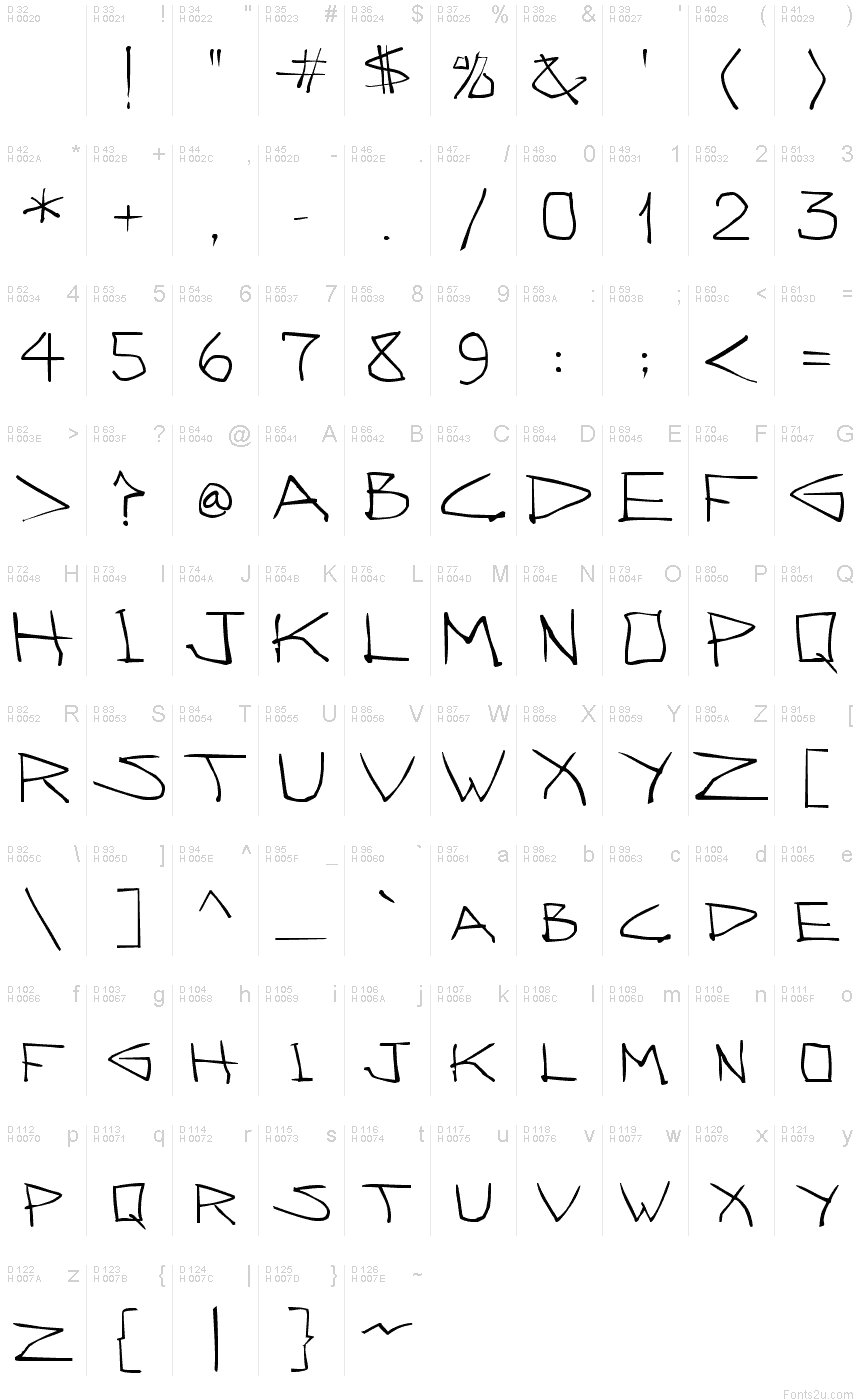
AlphaMouse
AlphaMouse font by Roland Frantz, Synergistic Designs is a free handwritten typeface with a scratchy, wiry energy that feels like it was scribbled with a thin marker on the edge of a notebook. Tall, narrow letters with sharp angles and playful irregularity give it a slightly chaotic, cartoonish vibe—half cheeky, half mischievous. The loose spacing and uneven stroke weight keep things light and informal, so it reads like a fast, excited note rather than a polished script.
Using AlphaMouse font, you can bring jittery personality to kids’ posters, comic panels, zines, YouTube thumbnails, game titles, and quirky brand stickers. This free font shines when used large for short phrases or headlines, where its spiky rhythm can really show. Pair it with a clean, simple sans serif for body text to keep the wildness contained and your layouts easy to navigate.